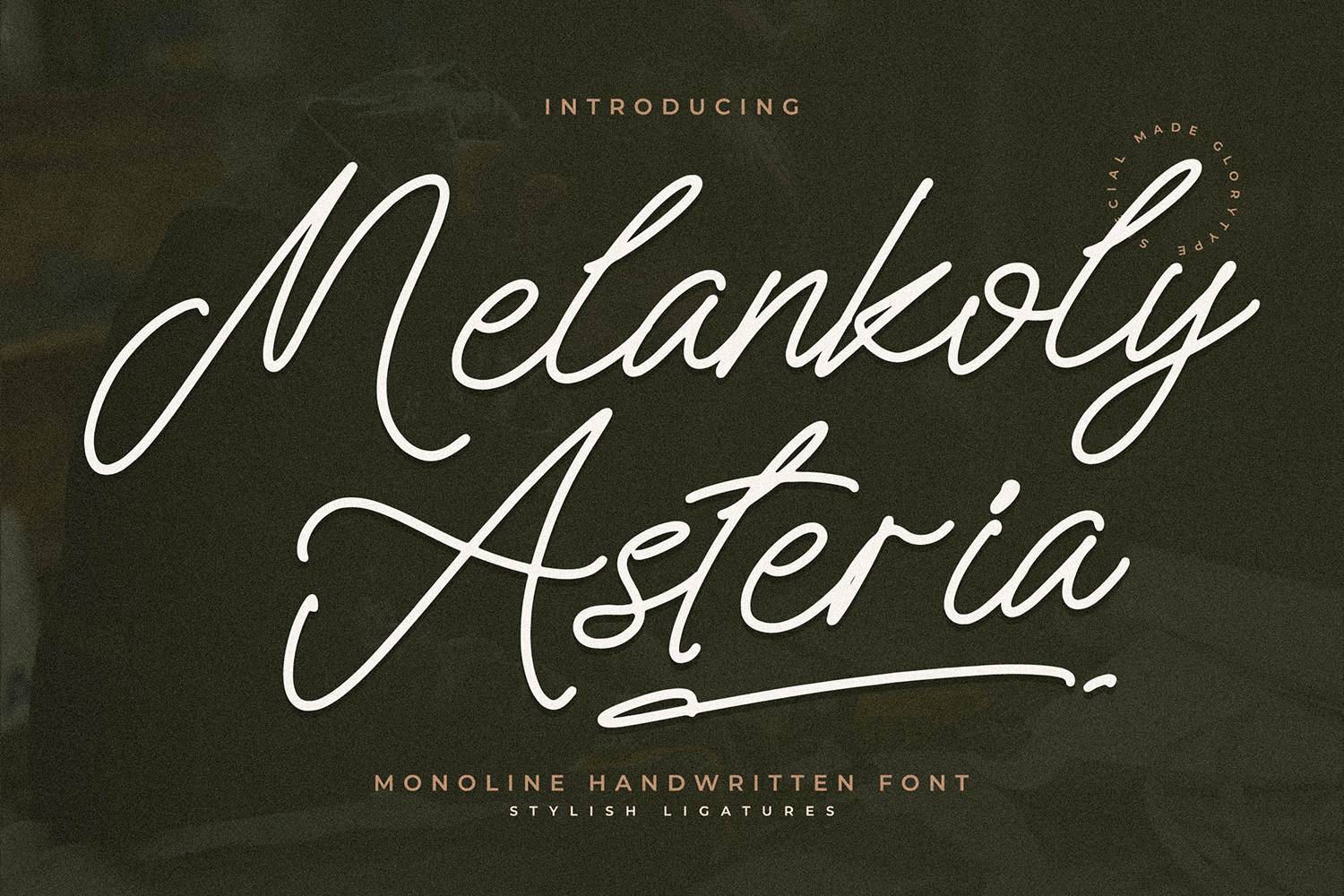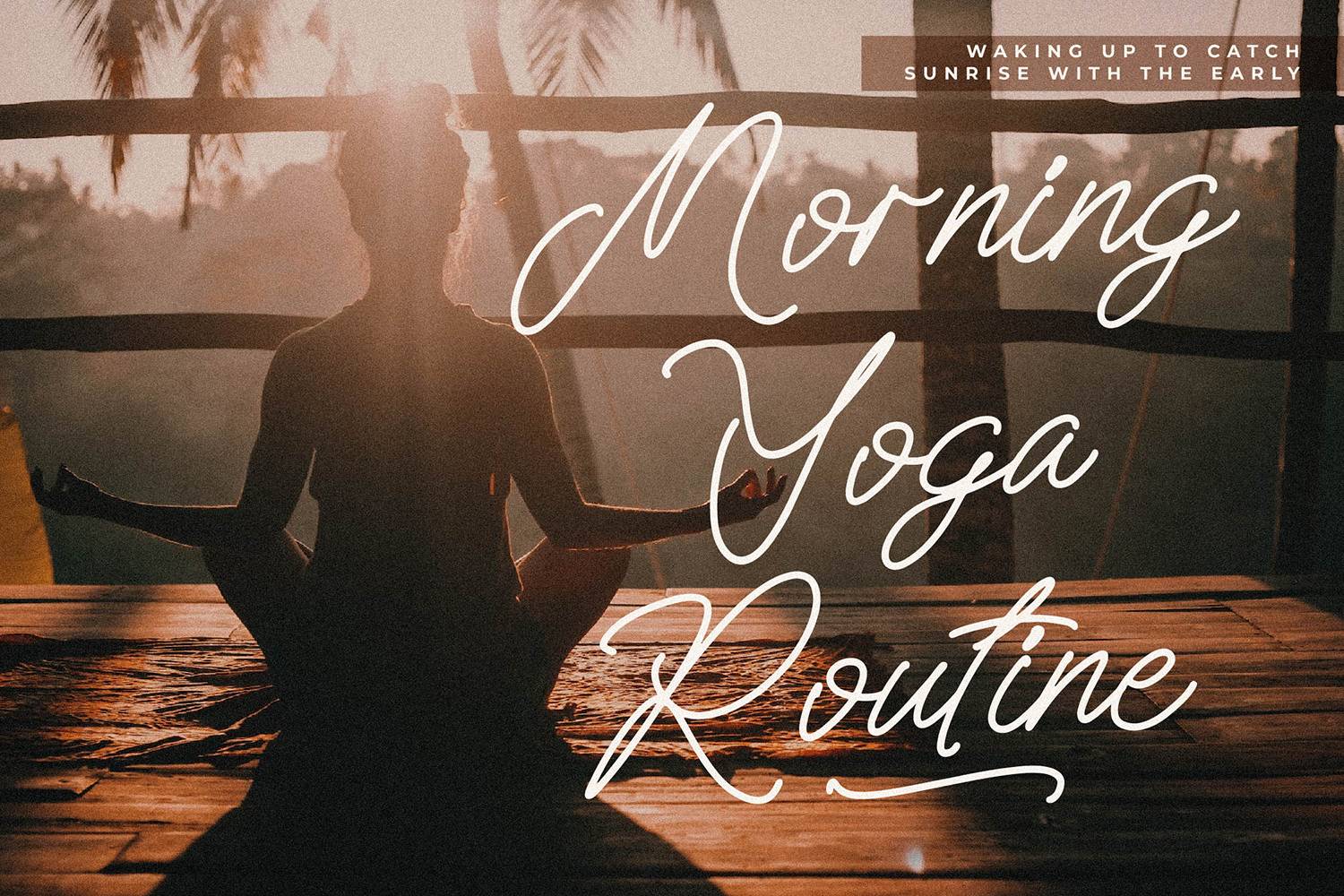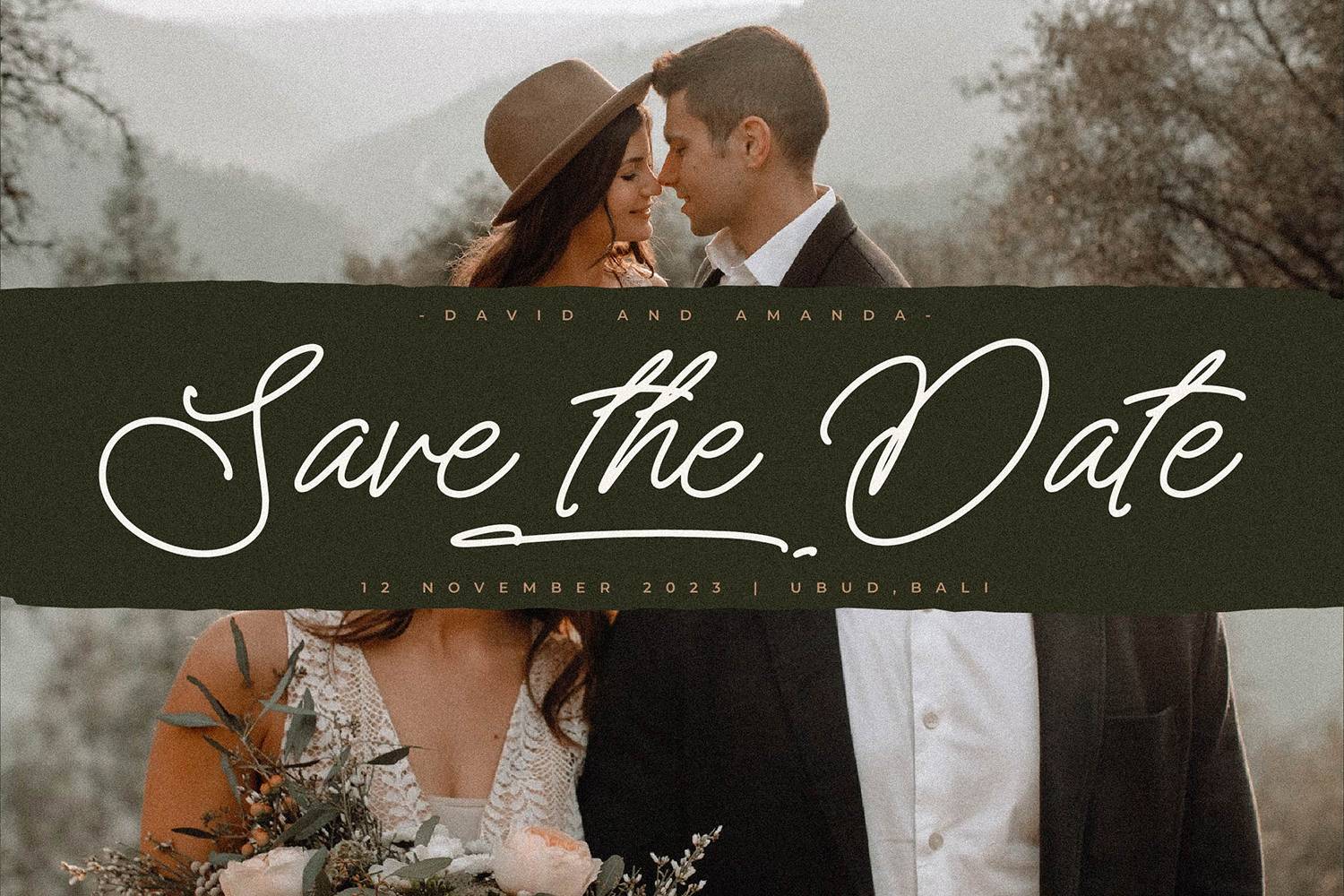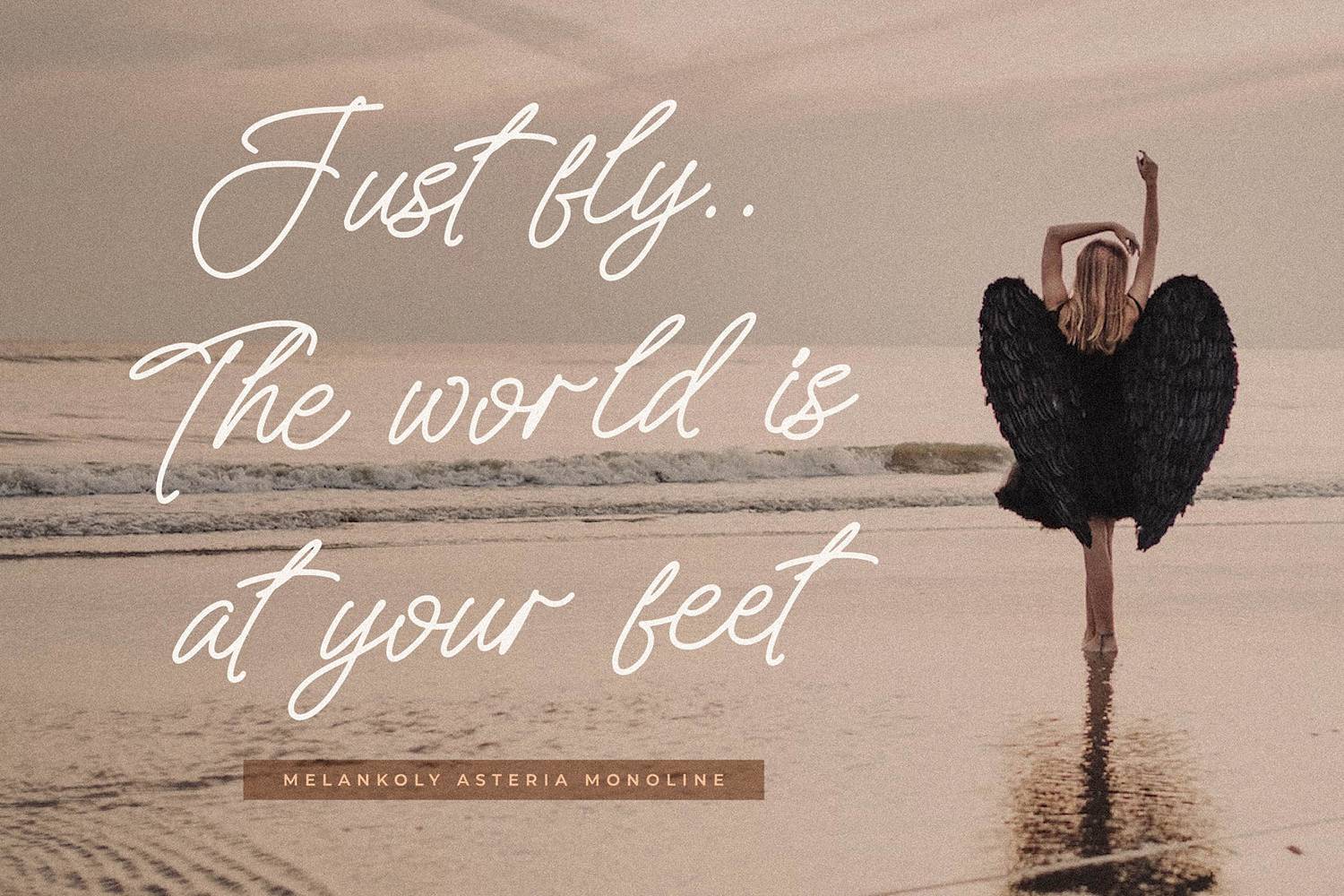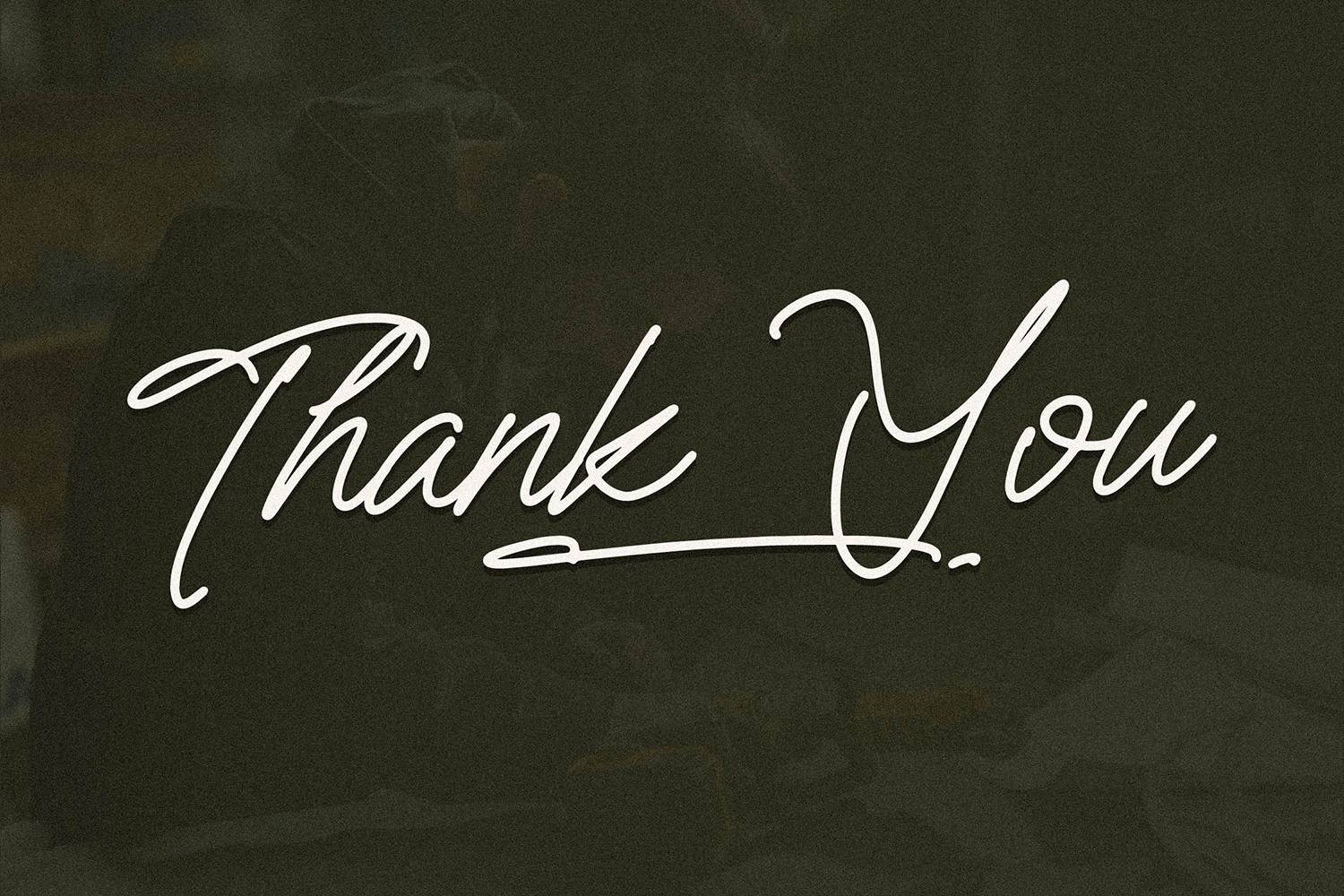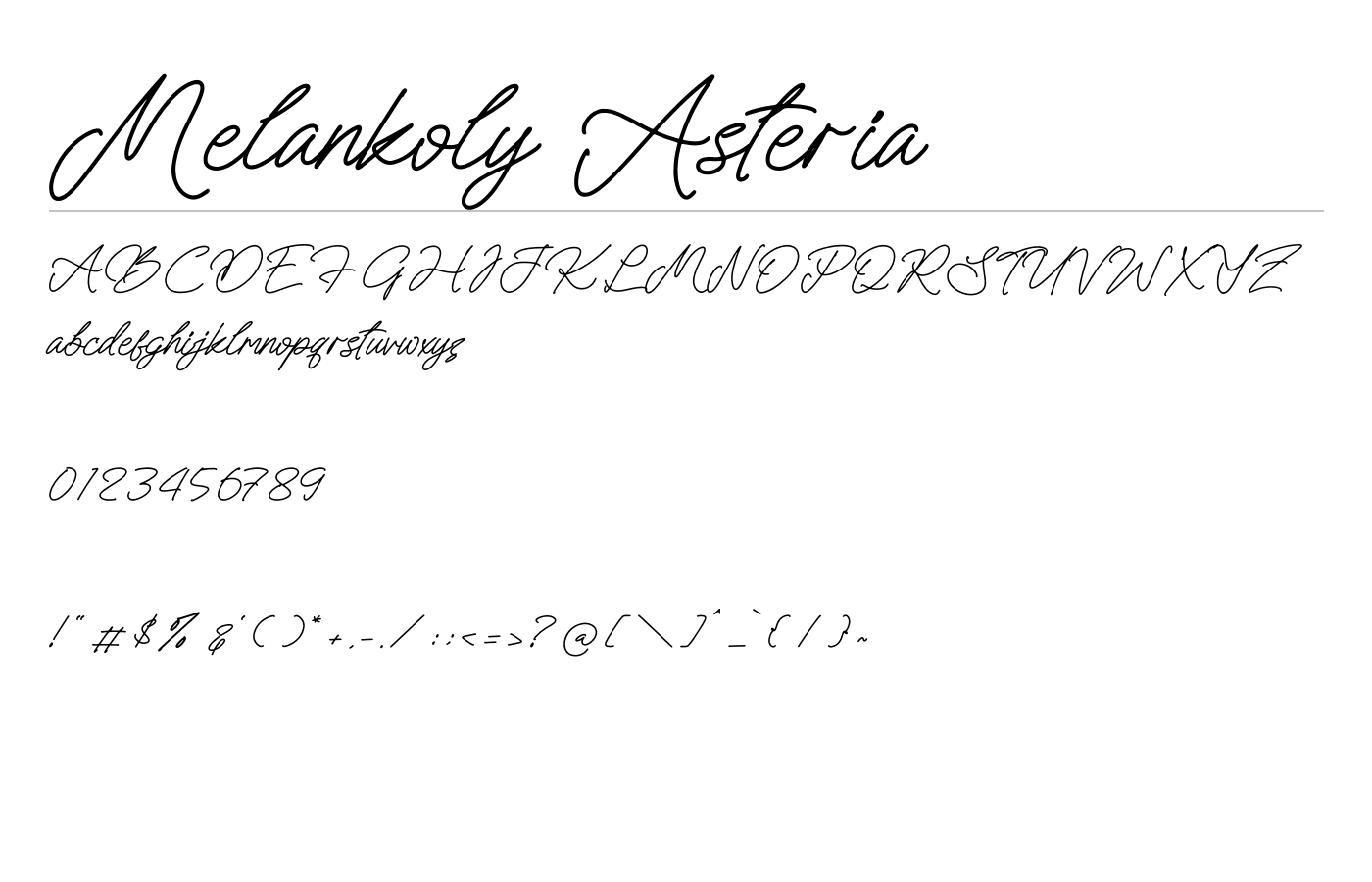
Melankoly Asteria is a delicate script font that features elegant, flowing strokes with a light weight and a graceful, handwritten feel. Its fine, slightly slanted letterforms and smooth connections give it a sophisticated and personal touch, making it ideal for invitations, branding, and creative projects that seek a refined yet approachable aesthetic. This font works best in settings where a subtle, stylish signature style is desired, adding a sense of warmth and individuality.